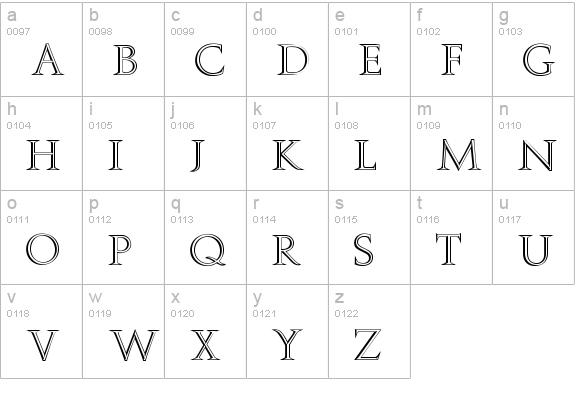
AureaInline Font Details
AureaInline font is a modern and stylish typeface that exudes elegance and sophistication. Its sleek lines and smooth curves make it perfect for a wide range of design projects, from branding to editorial design. The versatility and timeless appeal of AureaInline font make it a must-have for any designer looking to add a touch of refinement to their work. What's even better is that AureaInline font is available for free at FontsMarket.com! You can easily download this beautiful font and start using it in your projects right away. Don't miss out on the opportunity to enhance your designs with the stunning beauty of AureaInline font.